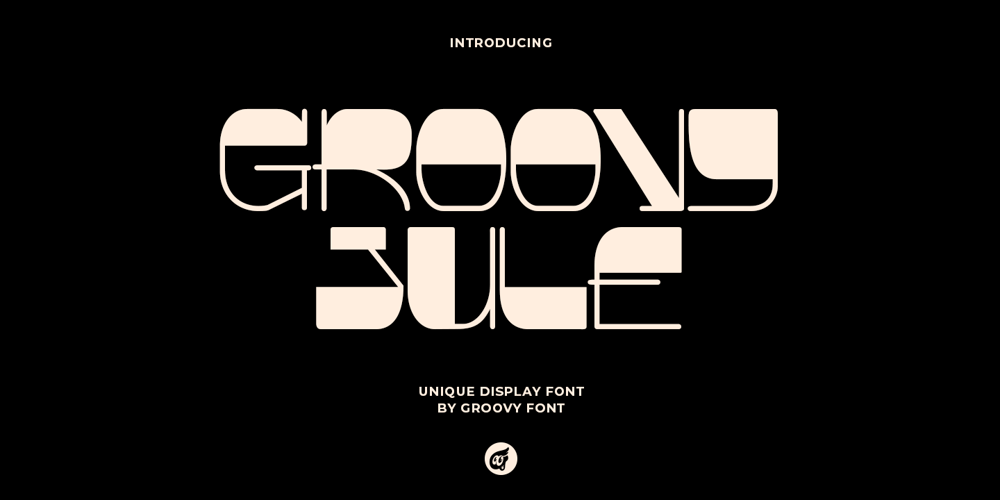
GF Jule Font Family was designed by Ahmad Ginanjar Riyadi and published by Groovy Font. GF Jule contains 1 styles and family package options. Groovy Jule is a unique display font that features a funky typeface, exuding a playful and energetic vibe. With its distinctive design and quirky style, this font is perfect for adding a fun and eye-catching touch to any project. Whether used for headlines, logos, posters, or any other creative endeavor, Groovy Jule is sure to make a statement and catch the eye of the audience.What’s you’ll get : – Uppercase, Lowercase, Numeral, Punctuation & Multilingual.For any questions please contact me 🙂Thank You !